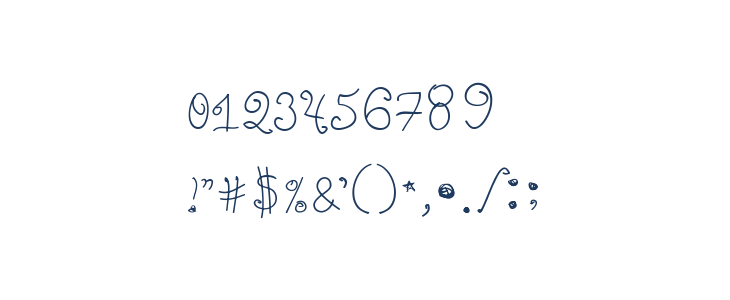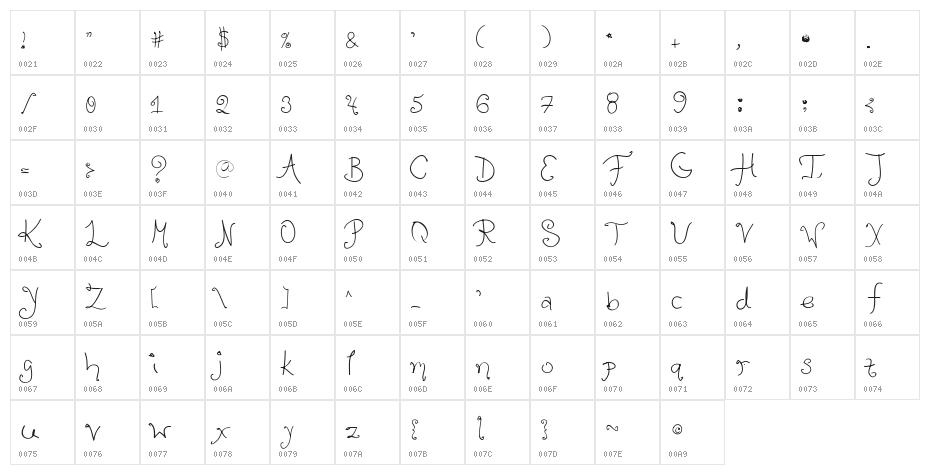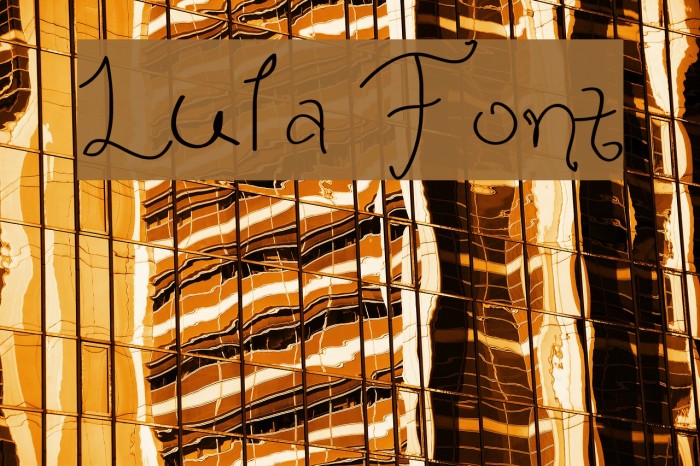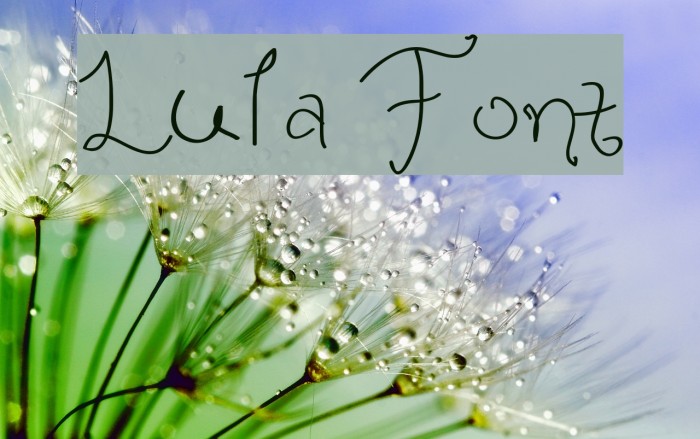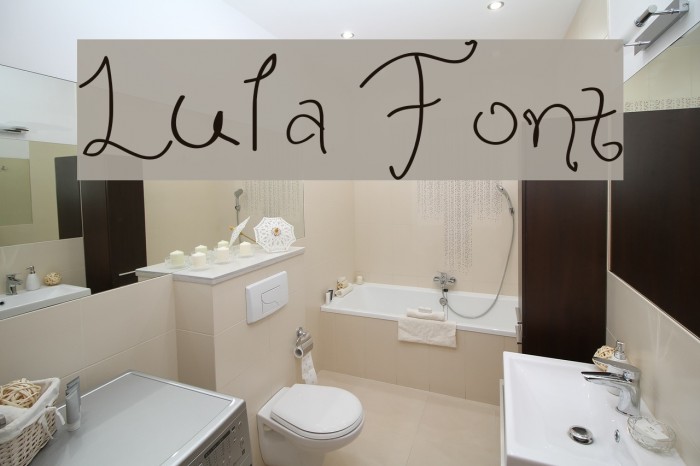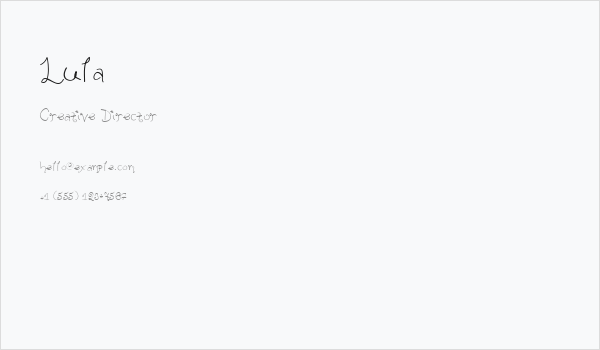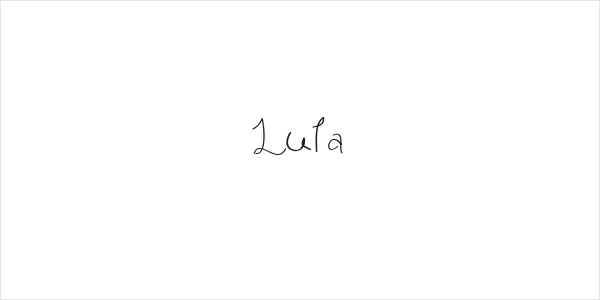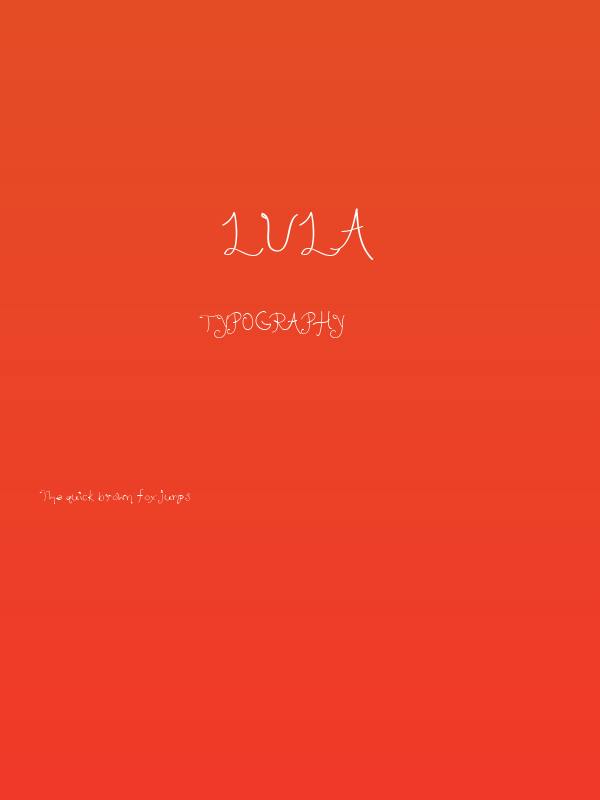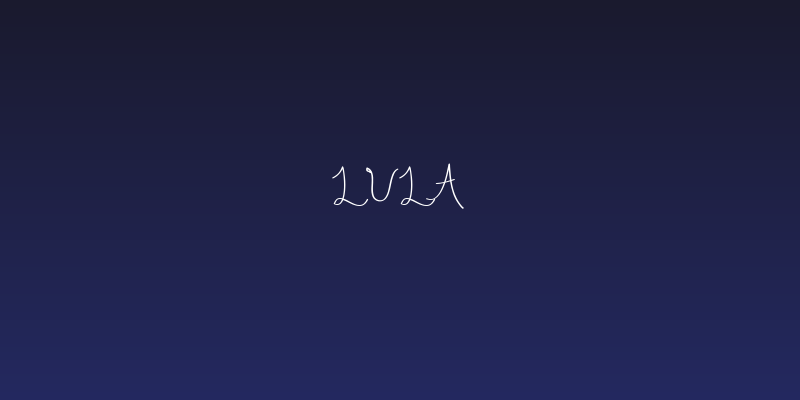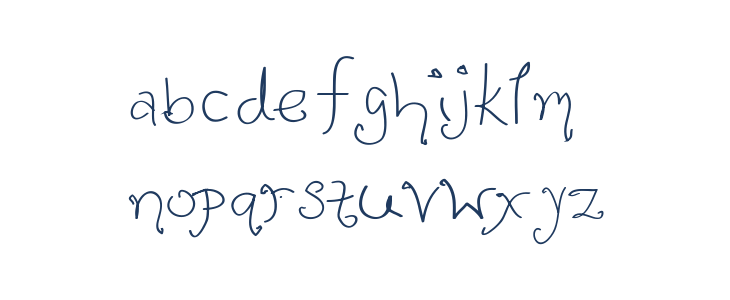
Lula Font
Lula Description
This font features a whimsical and playful design, characterized by its curly and looping strokes. The letters have a hand-drawn quality, with each character exhibiting unique flourishes and embellishments. The uppercase letters are tall and slender, while the lowercase letters maintain a consistent flow with a slightly more compact form. Numbers and special characters follow the same playful style, adding a touch of creativity to any text. The overall appearance is light-hearted and artistic, making it suitable for projects that require a touch of personality and flair.
| Overall Style | Playful, Artistic |
| Use Case | Headlines, Logos, Invitations |
| Proposed Projects | Ideal for children's books, greeting cards, playful branding, and artistic invitations. |